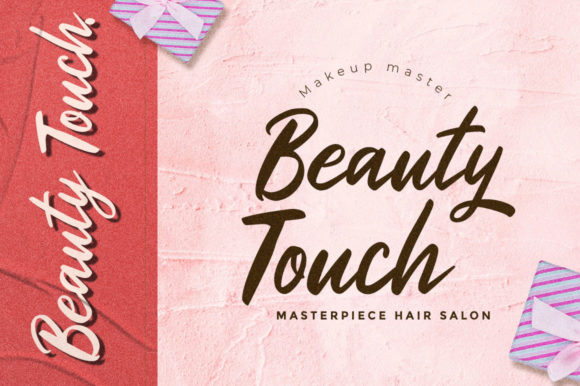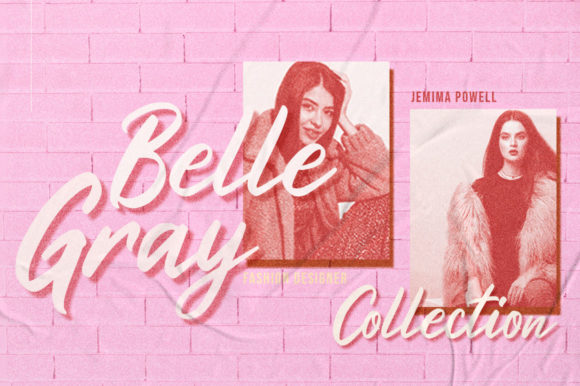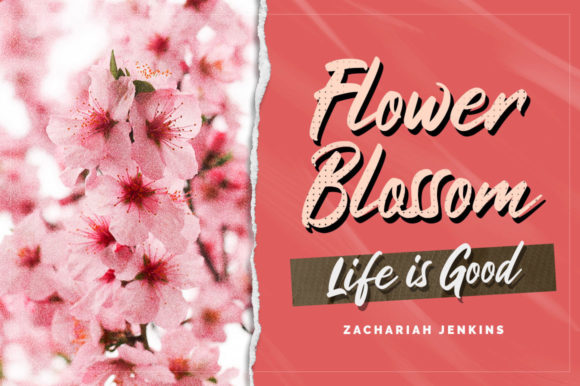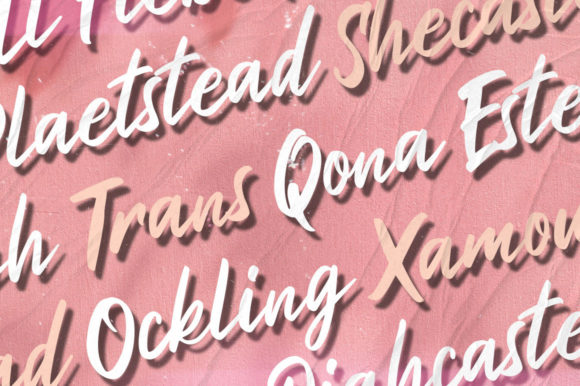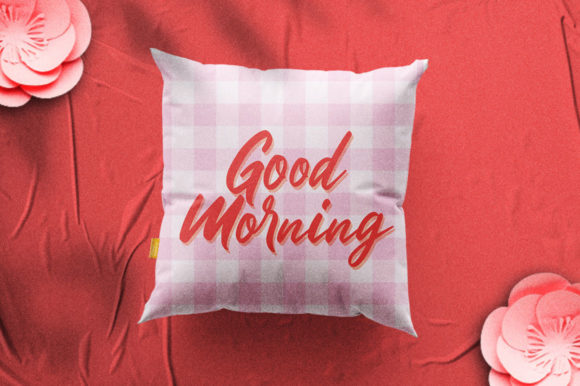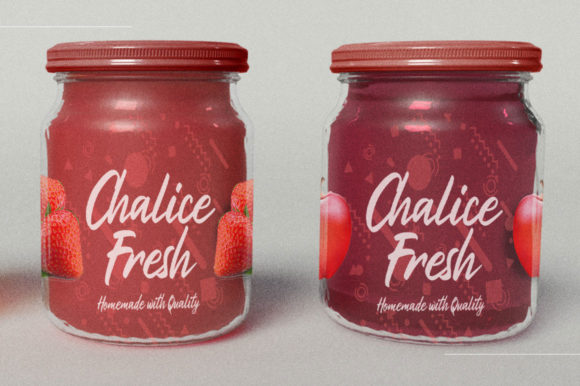
Have you ever been working on a project and suddenly, a spark of creativity hits you? The words start flowing, the ideas start pouring in, and before you know it, you’re lost in a world of imagination. That’s the magic of design, and it’s moments like these that make all the hard work worth it. But what if you could take that spark and turn it into something truly special?
Enter the Haritta Script Font, a cursive, paint-brushed script font that’s designed to add a touch of whimsy to your most creative ideas. With its unique characters that seem to dance along the baseline, this font is perfect for making your designs stand out from the crowd. And with its PUA encoding, you’ll have access to all the amazing glyphs and ligatures you need to take your work to the next level.
Key Features of Haritta Script Font
- Unique Characteristics: Haritta Script Font features a unique, handwritten style with subtle flair and elegance, making it perfect for creative and artistic projects.
- Font Style: Haritta Script Font offers a single font style, but with multiple weight options, allowing for a range of tonal expressions.
Haritta Script Font Review
As a designer, I was excited to dive into the world of Haritta Script Font and see what it had to offer. Overall, I was pleasantly surprised by its unique charm.
- ✨ Beautiful, handwritten feel: The script font has a lovely, cursive quality to it that makes it perfect for adding a touch of personality to your designs.
- ✨ Wide range of styles: Haritta Script comes in a variety of styles, from elegant to casual, making it suitable for a range of design projects.
- ✨ Great for branding: The font’s unique feel makes it perfect for creating memorable brand identities.
- ⚠️ Limited font weights: While Haritta Script comes in a range of styles, it’s limited in terms of font weights, which can make it difficult to achieve the perfect balance of boldness and subtlety.
- ⚠️ May not be suitable for large blocks of text: Due to its script nature, Haritta can be difficult to read when used for large blocks of text, making it better suited for titles and headings.
Overall, I’m a fan of Haritta Script Font. Its unique charm and wide range of styles make it a great addition to any designer’s toolkit. However, its limitations in terms of font weights and suitability for large blocks of text mean it’s not a one-size-fits-all solution. With careful use, Haritta Script can add a touch of personality to your designs and leave a lasting impression on your audience.
Tips for Getting the Most Out of Haritta Script Font
Use Haritta Script Font for titles, headings, and other decorative text elements to add a touch of elegance and sophistication to your designs.
Experiment with different font sizes, colors, and styles to create unique and visually appealing effects.
Use Haritta Script Font for:
- Birth announcements and baby shower invitations
- Special occasion cards and gift tags
- Editorial and design projects that require a touch of elegance and sophistication
Alternatives to Haritta Script Font
Great Vibes is a beautiful, elegant script font perfect for creating a romantic or vintage atmosphere. It’s ideal for wedding invitations, book covers, and other design projects where a touch of sophistication is needed.
Compared to Haritta Script Font, Great Vibes has a more refined and delicate feel, making it suitable for a wider range of design applications.
Literata
Literata is a modern script font that combines elegance and sophistication with a touch of playfulness. It’s perfect for creating eye-catching headlines, titles, and other design elements where a bold statement is needed.